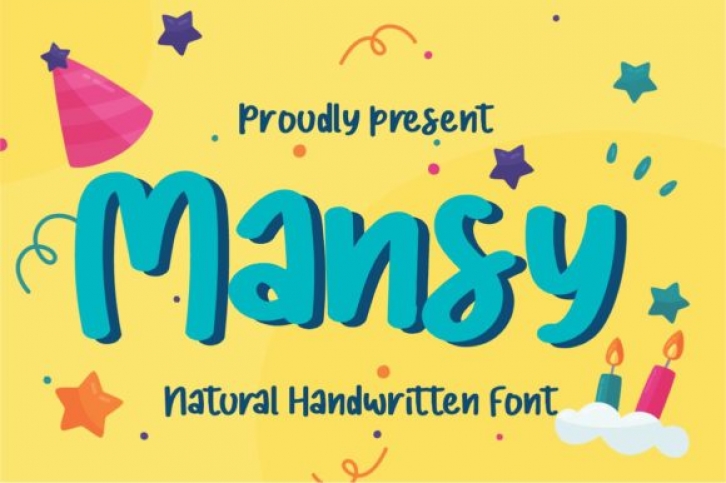
Mansy is a fun and joyful handwritten font. It embodies playfulness and authenticity and is the perfect choice for any children activity or school project